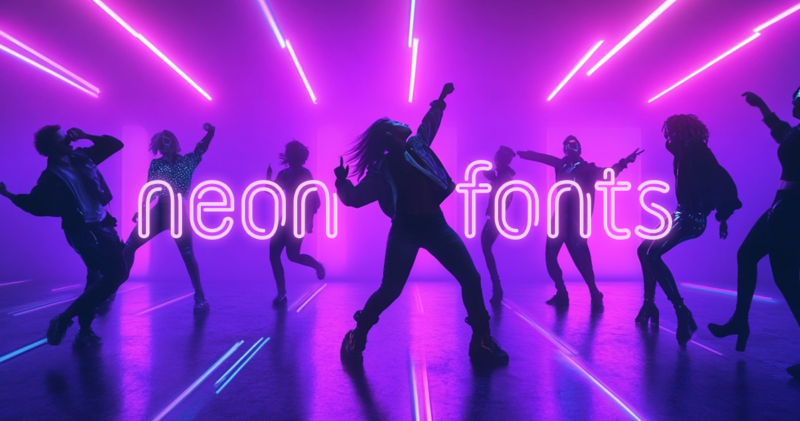
Why are neon fonts among designers’ most popular choices today? Their unique ability to invoke nostalgia for the retro eras of the 80s and to project, at the same time, a sense of futurism and urban chic makes them a versatile tool in any designer’s repertoire.
The glow of neon lights, captivatingly alluring and vibrant in color, has seen a serious comeback for digital design. This trend only shows that neon has a certain timeless appeal and can make even the most ordinary text look spectacular.
Neon fonts breathe life into everything from a vibrating city nightlife and a plethora of emotions to various themes, making them a very vast creative playground for your projects. They unlock options like channeling that great vintage vibe.
In this article, we will trace some history of neon typography, unveil a number of the best neon fonts, and pick up several tips on where and how to use them to maximum effect.
Stacko Neon Font
Stacko is a fun, versatile neon display font perfect for logos, branding, and modern advertising. Whether it’s for a t-shirt, mug, or poster, Stacko brings a stylish, hand-lettered charm to your projects.
Retro Neon Font – Script Style
Achieve an authentic neon look with this script-style font! Perfect for headlines, music promotions, and film titles, it brings a retro vibe to your designs with an updated flair.
Spectron – Techno Scifi Neon Outline Sans
Spectron is a stylish neon outline font ideal for logos, branding, and 80s retro designs. Its unique shape adds a modern touch to any project, from posters to home decor.
Jasuy – Modern Futuristic Neon Font
Jasuy is a futuristic neon font with a modern twist. Perfect for headlines and titles, it features extra ligatures for unique styles, making your designs stand out beautifully.
Neon Ballroom
Inspired by retro poster design, Neon Ballroom adds a handmade feel to your brand. With multilingual support and various formats, it’s perfect for logos, labels, and invitations.
Night Vibes – Neon Light Font
Night Vibes is a modern neon light font perfect for nightlife themes. It features uppercase, lowercase, symbols, numerals, and multilingual support, ideal for branding and titles.
Fuse – Realistic Neon Typeface
Fuse captures the essence of real neon signs with its geometric forms and smooth corners. Ideal for music promos, film titles, and bold headings, it’s a versatile choice for any project.
Neon Bright – Neon Display Font
Neon Bright is a sleek monoline font with a vibrant glow, perfect for event posters and digital designs. Its simple installation makes it a go-to choice for stylish branding.
Qlinsey
Qlinsey is a clean handwritten font perfect for modern designs. With swashes and leaf alternates, it adds a unique touch to logos, cards, and more.
Rousing Neon | Modern Neon Light Font
Rousing Neon combines modern elegance with playful charm. Its bold uppercase letters shine in any design, making it perfect for headlines, logos, and vibrant titles.
Gleamy Neon – Futuristic Neon Light font
Gleamy Neon features a sleek, modern design inspired by neon signs. It’s perfect for logos, posters, and various creative projects, adding a vibrant touch to your designs.
Lumaneon – Retro Neon Sign Sans Serif Font
Lumaneon is a retro-inspired sans serif font, ideal for branding, logos, and 80s-themed designs. Its nostalgic style brings a lively feel to any project.
Espectrez
Espectrez is a modern sans serif font inspired by neon signage. With its bold outlines, it’s perfect for futuristic designs, branding, and creative projects.
Astario
Astario brings retro neon vibes to your designs. Ideal for labels, packaging, and text overlays, it adds a nostalgic flair to any project.
Raskhal – Brush Font
Raskhal is a brush font inspired by the neon style of the 1980s. It’s perfect for branding, social media, and product designs, adding a playful touch to your work.
Retro Neon Font – Square Style
Night Light Neon offers a specially crafted square font inspired by neon designs. Perfect for headlines, it achieves a vibrant, authentic neon look for music promotions, film titles, and more.
Retro Neon Font – Inline Style
Night Light Neon in inline style provides a sleek, neon-inspired font ideal for headlines. It’s designed for impactful visuals in music promotions, film titles, and other creative projects.
What are the best fonts one can use to give a neon sign effect?
It can also be used to create some top neon signs, such as Spectron for a techno-sci-fi effect or Jasuy for a modern look. Both fonts are unique in terms of style and adaptability, and as such, stand among the best when it comes to digital artwork and physical signs. If you’re on a hunt for more, then check out some of the best fonts that’ll make your designs pop: Neon Fonts Which Will Make Your Designs Stand Out.